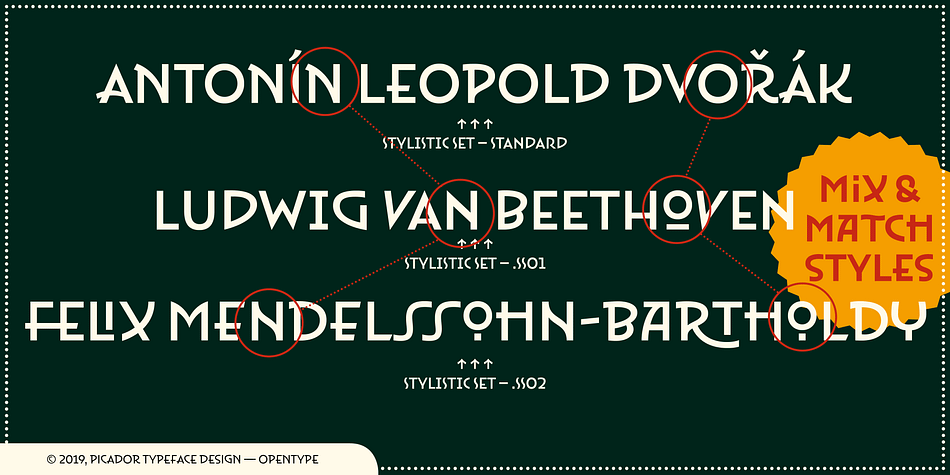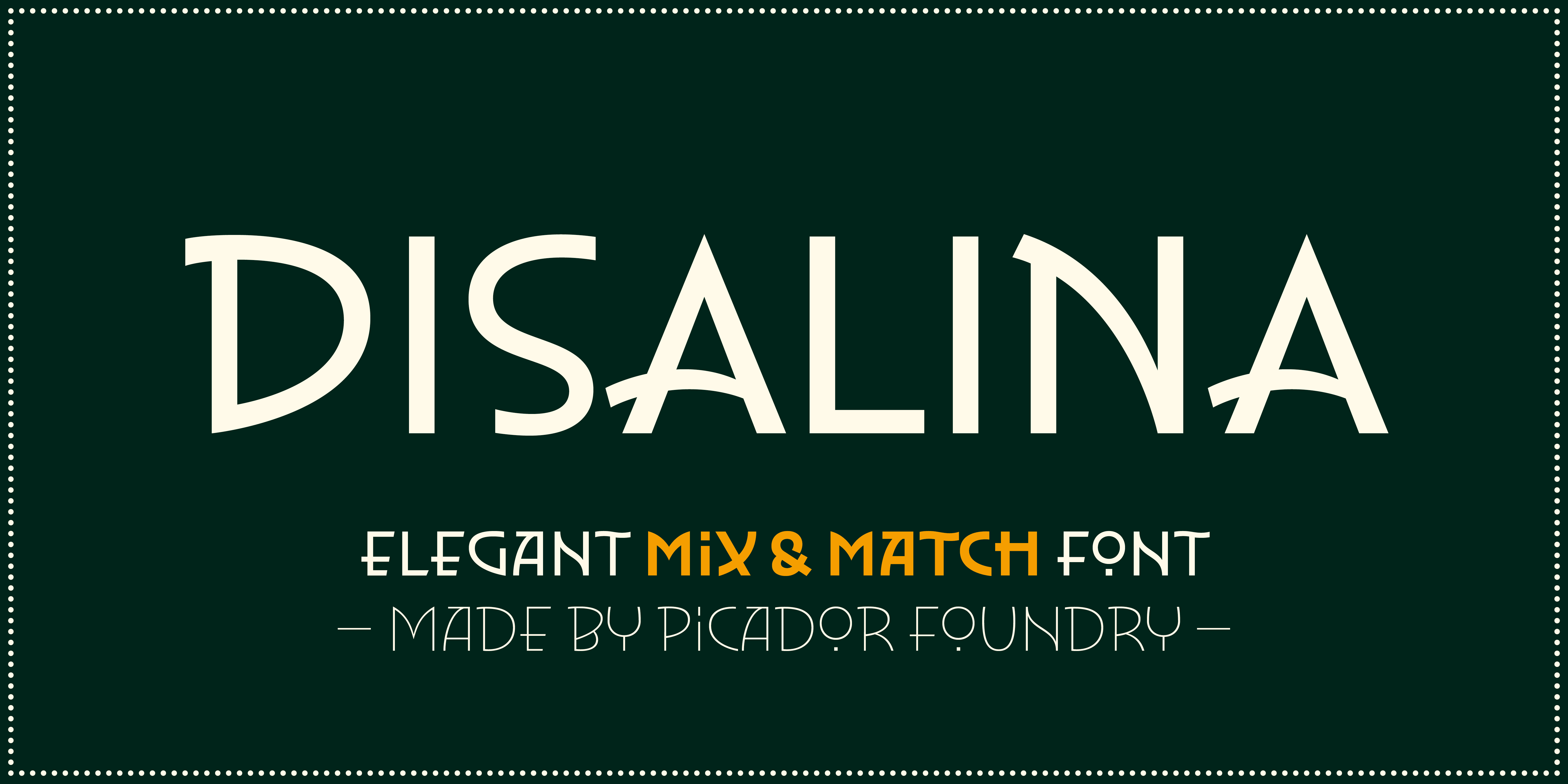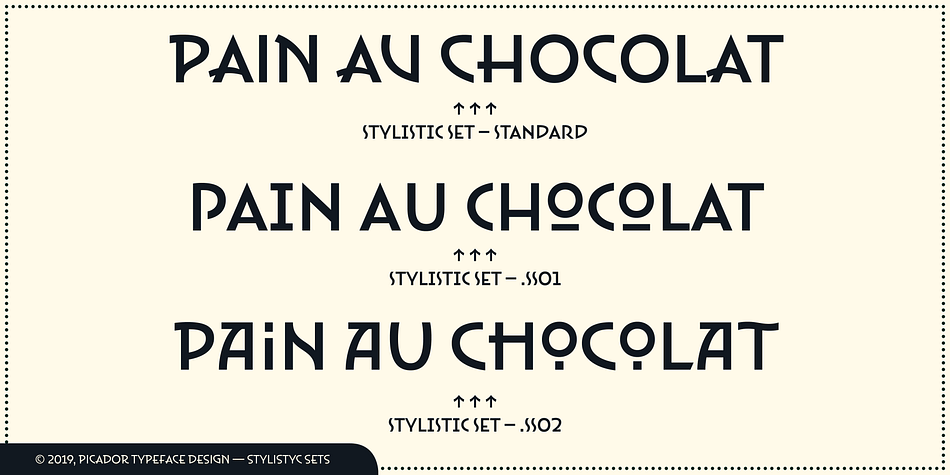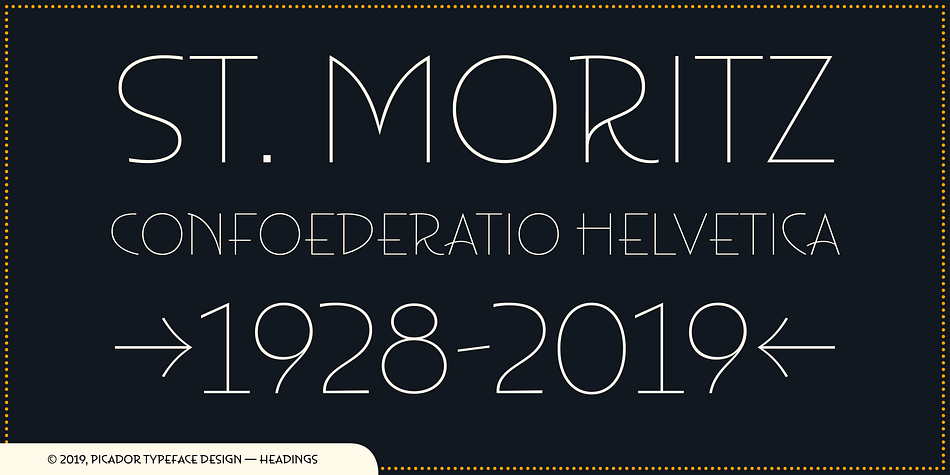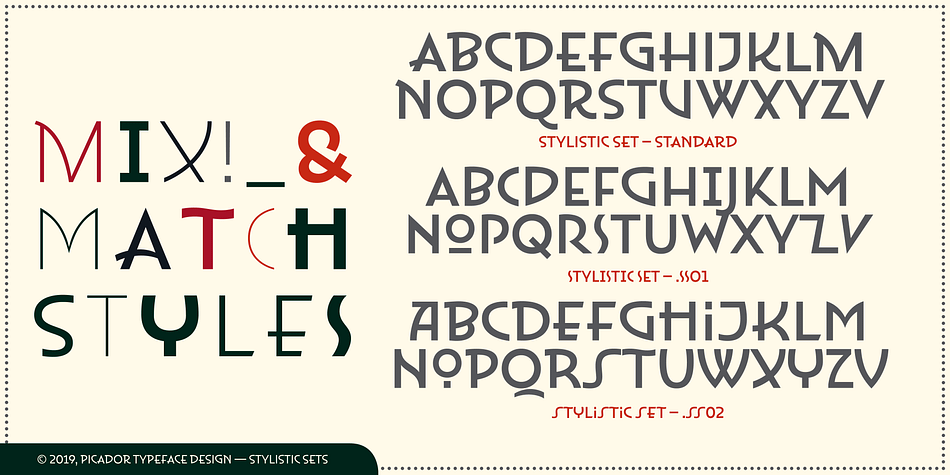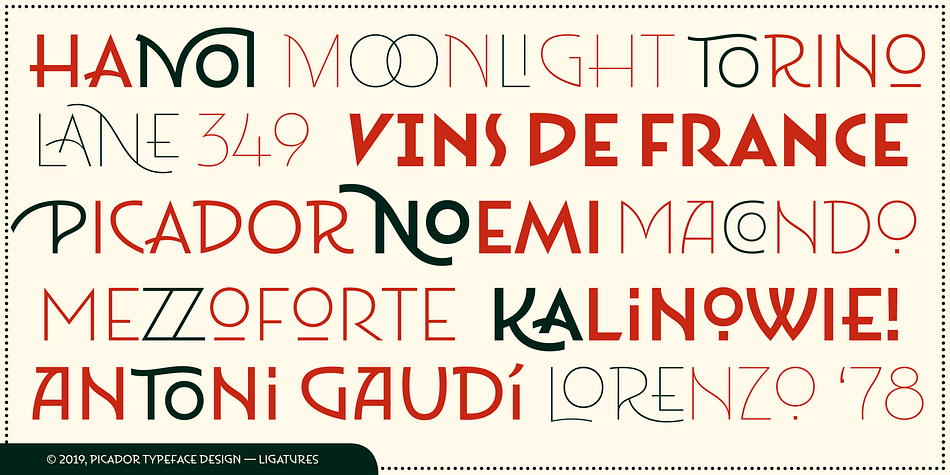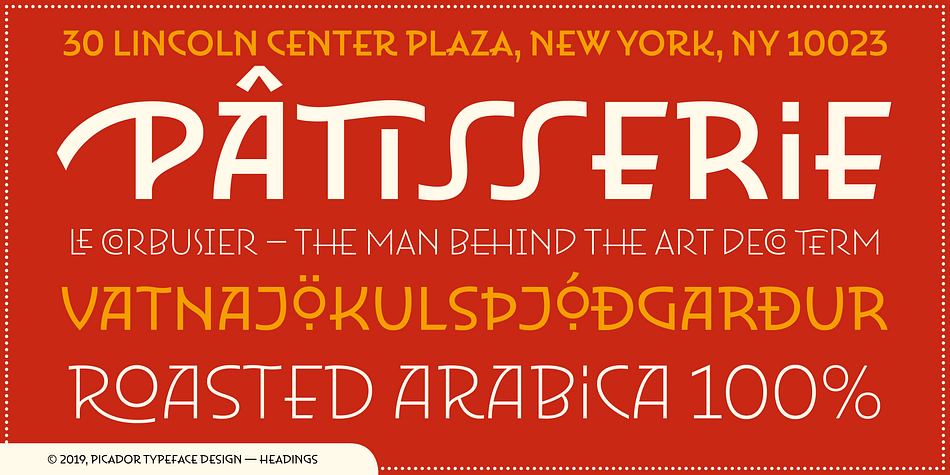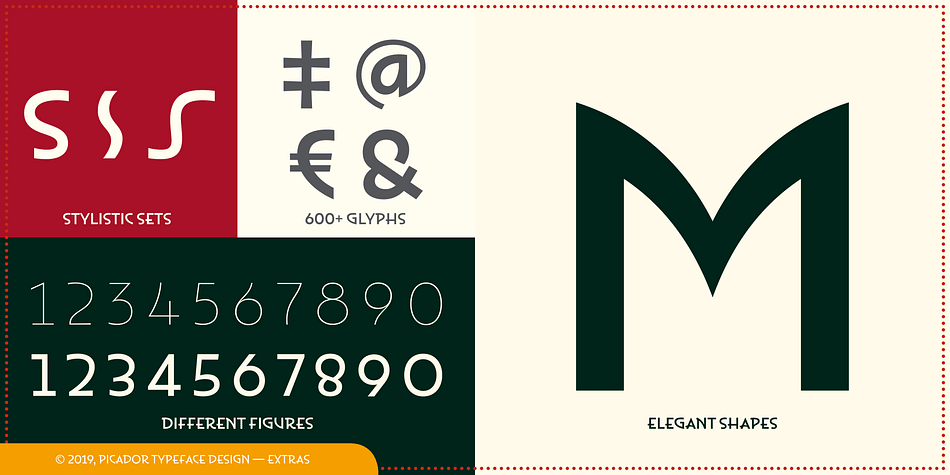
Designed by Maciej Włoczewski, Disalina is a art nouveau and retro font family. This typeface has seven styles and was published by Maciej Włoczewski.
Disalina is a typeface adjusted to your needs. You are looking for geometrical shapes, stylized ligatures or lettering reminiscent of Art Nouveau? Three stylistic sets that are included in every weight will make your project more creative. Disalina family was inspired by the lettering and posters of late 1800s and the beginning of the 1900s. It merges beautiful vintage design and modern graphic thinking.
The whole family consists of 7 weights – you will find different opentype features such as ligatures, stylistic sets, arrows, swashes and more. Disalina is a true friend – no more different fonts to mix & match different styles.
Styles | Art Nouveau, Retro |